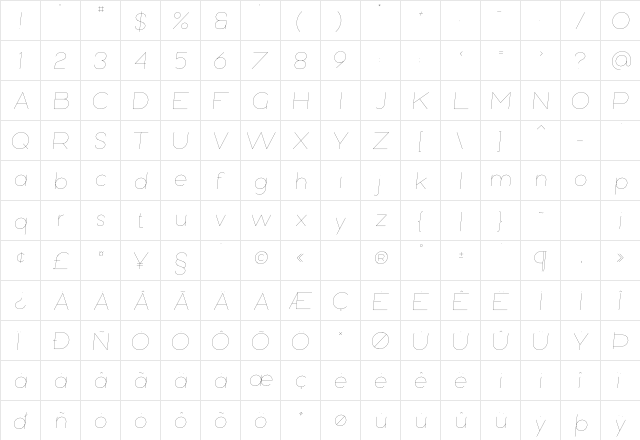
Bubbble Gum Italic Hairline
Design Context for Bubbble Gum Typeface
Bubbble Gum offers clean, dependable letterforms without strong stylistic allegiance, making it a practical choice for designers who need flexibility. Its italic angle brings a sense of urgency and motion to the letterforms. The delicate stroke weight brings airiness and refinement to layouts.